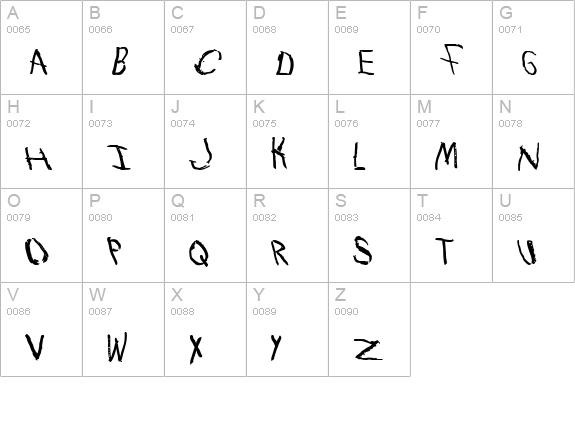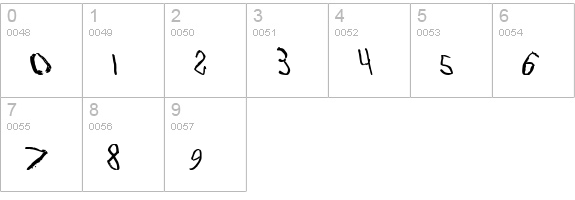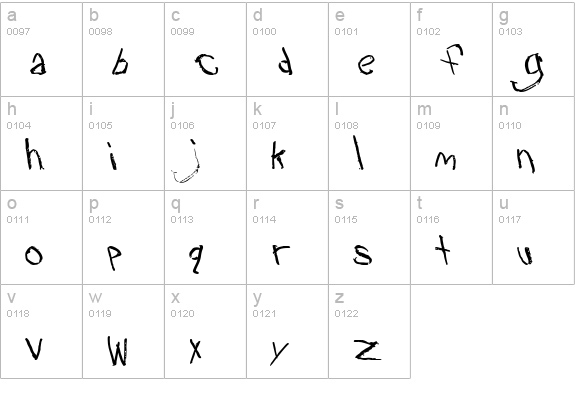
Travesty Bold Font Details
Travesty Bold is a strong, high-contrast variant in the Travesty typeface family \xE2\x80\x94 well suited to headlines, attention-grabbing titles, and strong calls-to-action.
Travesty Bold font is a stunning display font that captivates with its bold and daring presence. With its edgy and distinct letterforms, this font is perfect for making a powerful statement in any design project. The strong and confident strokes of Travesty Bold demand attention and effortlessly catch the eye. This font exudes a sense of sophistication and modernity, making it an excellent choice for branding, logos, headlines, and posters. Its unique design allows for versatility, ensuring that it can be used across various industries and design styles. Travesty Bold is not only visually striking but also incredibly legible, ensuring that your message is communicated effectively. Its carefully crafted letterforms maintain clarity even at smaller sizes, making it suitable for both print and digital applications. What sets Travesty Bold apart is its availability for free download at FontsMarket.com. This means that designers and creatives can have access to this exceptional font without any cost. The convenience of freely obtaining this font allows for endless creative possibilities without breaking the bank. Whether you're a professional designer or a hobbyist, Travesty Bold is an essential addition to your font library. Its bold and daring nature will elevate your designs and make them stand out from the crowd. Download Travesty Bold today and unleash your creativity with this captivating font, available exclusively at FontsMarket.com.